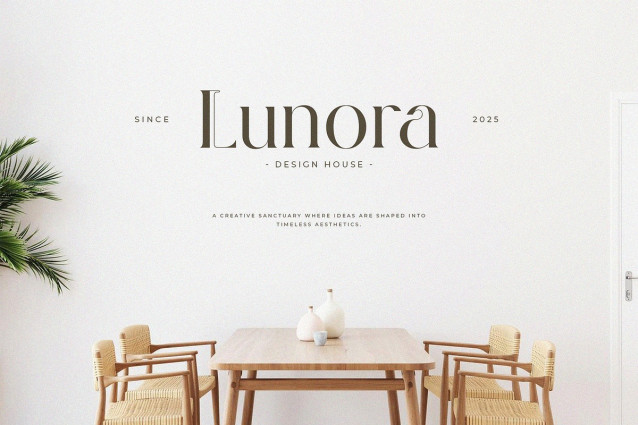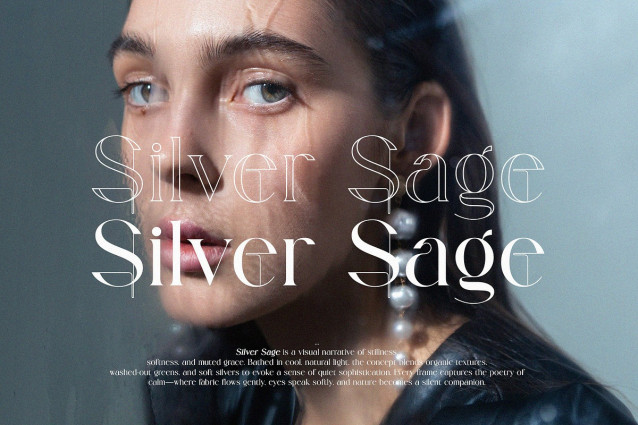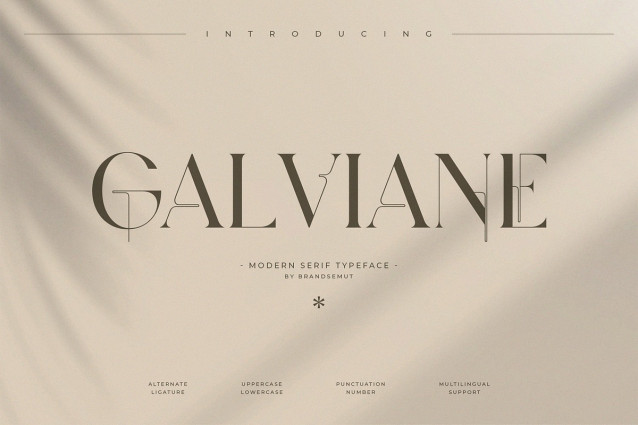
Galviane Font
Galviane Font is a high-fashion modern serif typeface that blends elegant structure with creative expression. Featuring full uppercase and lowercase characters, along with sophisticated alternates and ligatures, Galviane is perfect for bold editorial design, stylish branding, and high-end print layouts.
Its expressive curves, clean serifs, and artistic form make Galviane a distinctive choice for creatives seeking to add character, luxury, and modern elegance to their typography.